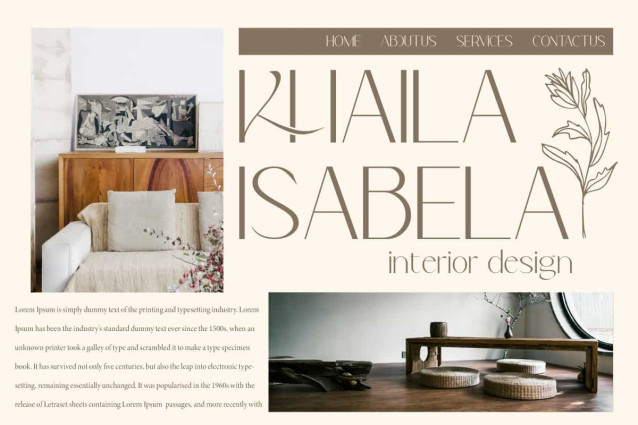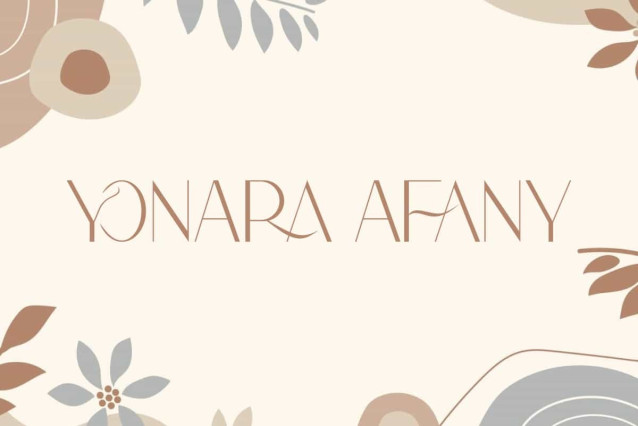
Yonara Afany Font
Yonara Afany Font is a sans serif display font that has an elegant style with minimalist characters. This font will be perfect for various projects, such as advertisement, blog, brand image, gift box, invitation, label, layout design, quotes, signboard, template design purpose, website, and many more.
Yonara Afany Font includes full set of Uppercase and Lowercase Basic Characters, Numerals, Punctuation, and Symbol. This font contain Ligature character that has fashionable feel. Making it a perfect choice for a variety of fields, such as accessories and jewelry, cosmetic, event or wedding organizer, fashion, florist, furniture, real estate, skincare, spa salon, etc.